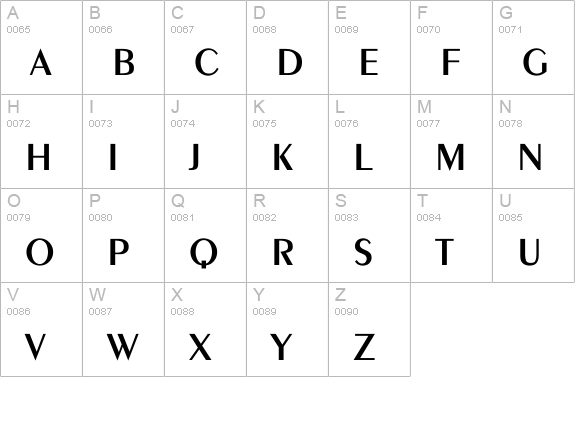
Exotic-Demi is a sub-bold, structured variant in the Exotic typeface family \xE2\x80\x94 well suited to sub-headlines and emphasised passages.
Exotic-Demi font is a stunning and unique typeface that captures attention with its exotic flair and bold demi weight. Perfect for adding a touch of sophistication and elegance to your designs, this font stands out with its intricate details and stylish curves. What makes Exotic-Demi font even more appealing is that it is available for free download at FontsMarket.com. Whether you're working on a project that requires a touch of exoticism or simply looking to elevate your designs with a distinct font choice, Exotic-Demi is the perfect choice. Download it now and unleash your creativity with this captivating and versatile typeface.